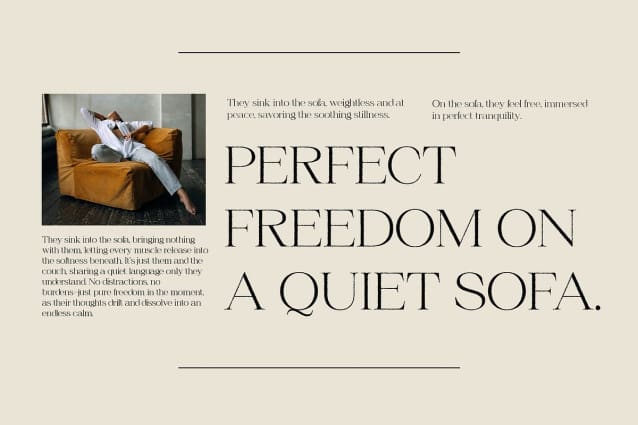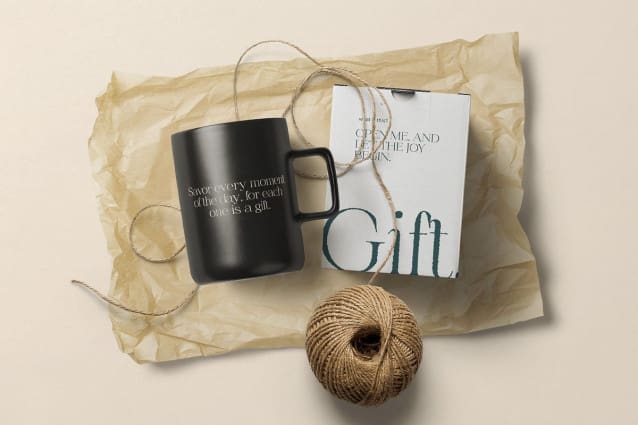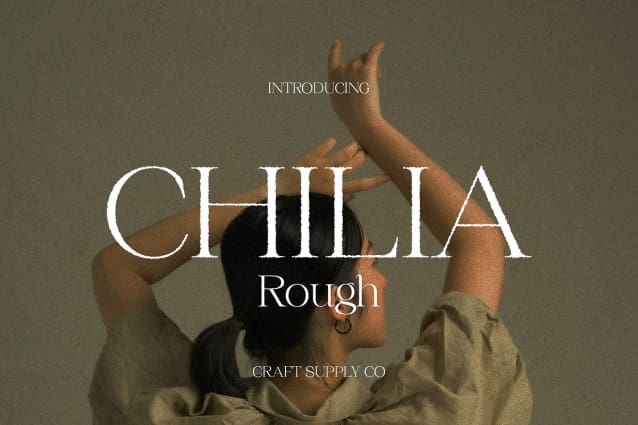
Chilia Rough Font
Chilia Rough Font is a sophisticated serif font that beautifully blends modern design with a feminine flair. The combination of sharp, structured lines and soft, flowing shapes creates a harmonious balance between strength and grace. This unique font design is perfect for projects that seek to evoke elegance while maintaining a bold, contemporary feel. The rounded details and feminine appeal give Chilia Rough a distinctive charm that stands out in any design.
Rough Texture Effect for Vintage Appeal The font’s rough texture effect adds a tactile, vintage feel to its otherwise refined structure. This intentional wear and tear provide an artistic, almost handcrafted look that gives the font a unique character. It captures a sense of timelessness while maintaining a modern edge, making it perfect for designs that require both sophistication and a touch of rawness.
Perfect for Branding and Editorial Projects Chilia Rough shines in branding, editorial, and creative design projects that demand a mix of luxury and artistic expression. Its elegant yet bold design makes it perfect for high-end brand identities, where the font’s graceful curves and rough edges evoke both refinement and authenticity. The font’s distinctive character makes it ideal for fashion, beauty, and lifestyle brands looking to add a touch of uniqueness to their visual identity.